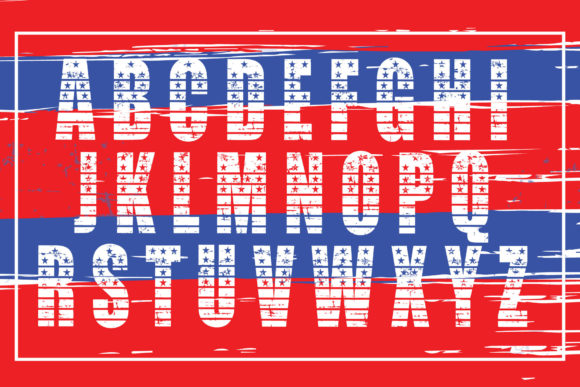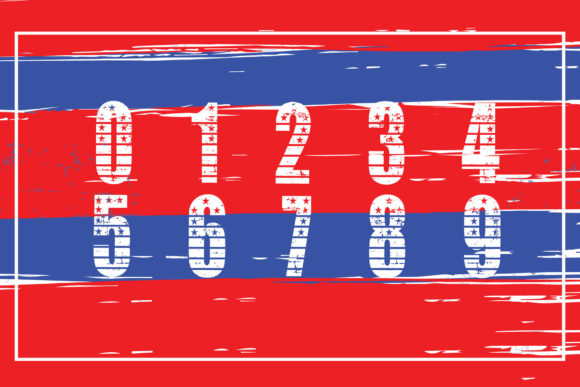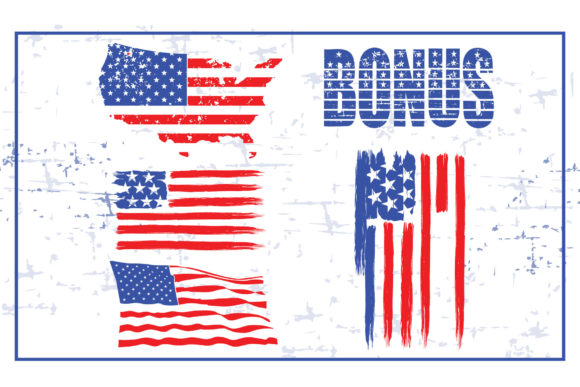
Get Ready to Rev Up Your Designs with the American Grunge Font
Have you ever been in the zone, surrounded by the hum of a racing engine, the rush of adrenaline, and the thrill of the unknown? For designers, that moment often comes when they stumble upon the perfect font to match their creative vision. And, trust us, you won’t want to miss out on the American Grunge Font. This bold, eye-catching display font is designed to capture the spirit of speed and sports, making it the perfect addition to any design project.
Whether you’re working on a project related to motorsports, extreme sports, or anything that exudes energy and excitement, the American Grunge Font is an ideal choice. Its unique design and versatility make it a valuable asset for designers looking to add a touch of authenticity and personality to their work. With the American Grunge Font, the possibilities are endless, and the fun is just beginning.
Key Features of American Grunge Font
- Unique Characteristics: This font features a distressed, grunge-inspired aesthetic, with rough textures and imperfections that give it a worn, vintage look. The font also includes a range of subtle variations in letterforms to add to its organic feel.
Designer Review: American Grunge Font
Overall, I think the American Grunge Font is a decent attempt at capturing the aesthetic of the 90s grunge movement. ✨ The font’s distressed, hand-drawn feel gives it a unique, edgy look that’s sure to appeal to fans of the era. The bold lines and irregular shapes add to its grungy charm, making it a great choice for music festival posters, band merchandise, or even a trendy coffee shop logo.
However, there are a few limitations to consider. ⚠️ For one, the font’s irregularities can sometimes make it difficult to read, especially in smaller sizes or when used in long blocks of text. Additionally, the font’s “hand-drawn” feel can come across as a bit too sloppy or inconsistent in some places, which may detract from its overall impact.
Design Considerations:
- Use in short, bold headings or titles
- Pair with a clean, modern sans-serif font for body text
- Avoid using in long blocks of text or at small sizes
- Consider using a more polished, refined font for professional or corporate applications
Getting the Most Out of American Grunge Font
To get the most out of American Grunge Font, use it to create a distressed or vintage look in your designs.